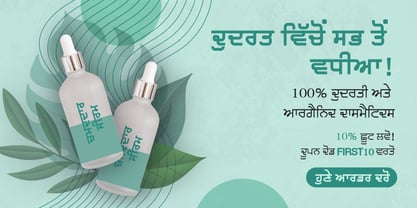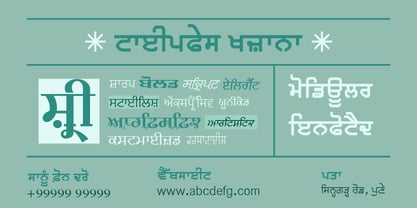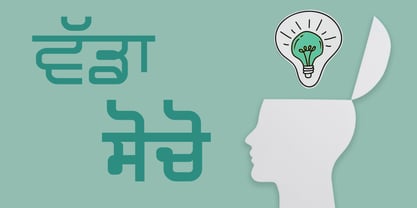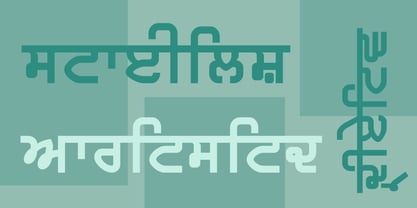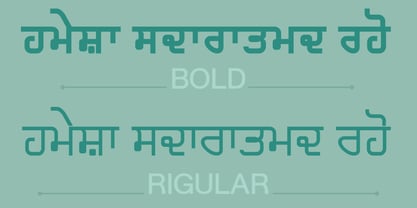
Shree Punjabi 1766
Shree Punjabi 1766 is a display font that features a softer and more contemporary appearance with clean strokes. It carries a more approachable tone. The Regular weight works well for continuous reading, while the Bold weight offers strong emphasis without losing harmony.
The font’s design emphasizes clarity and cultural integrity, making it ideal for formal documentation, cultural promotions, and branding that seeks to honor Punjabi heritage. Best suited for magazines, advertisements, websites, and educational content. Its adaptability makes it reliable for both headlines and body text, especially in modern communication design.